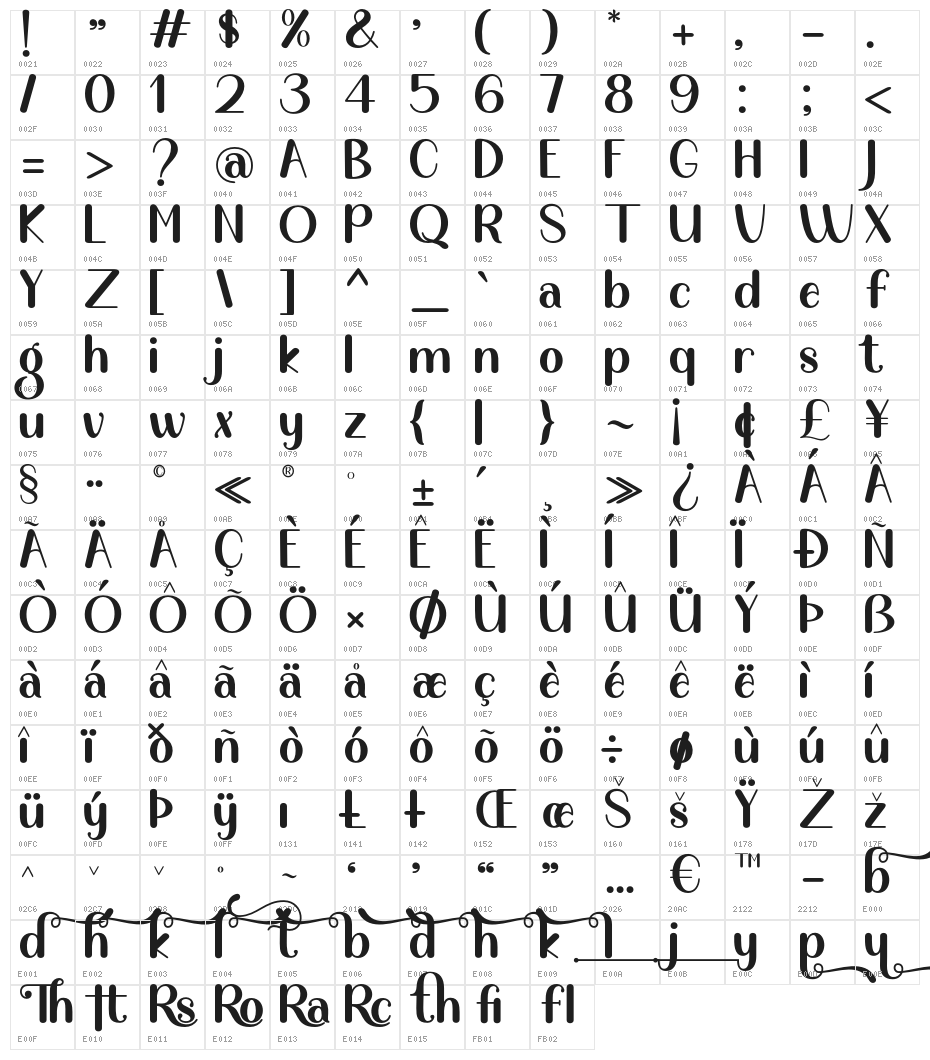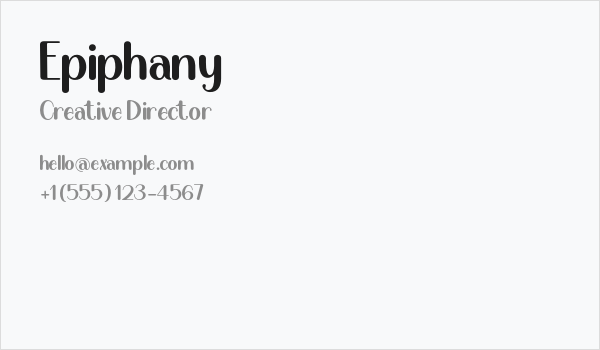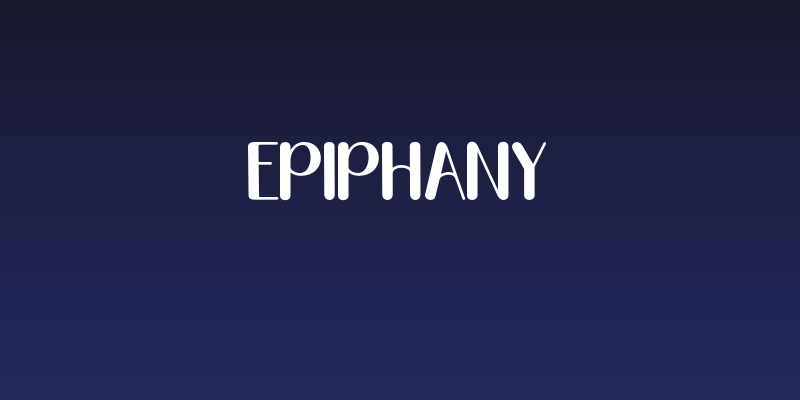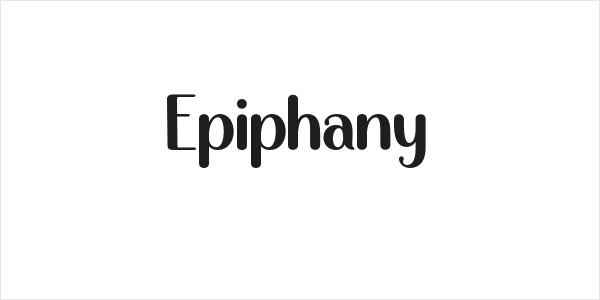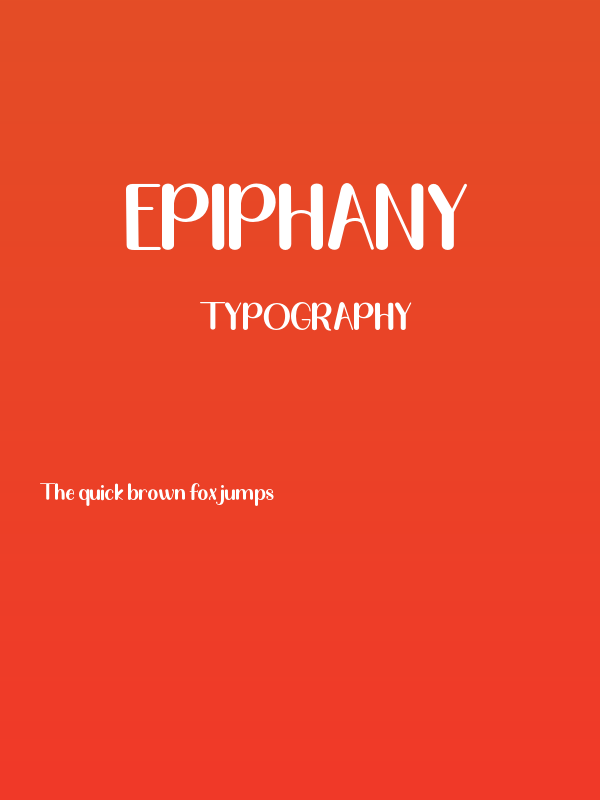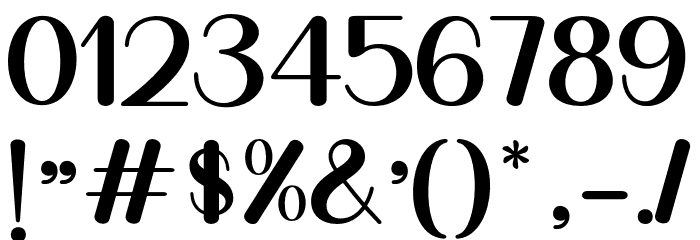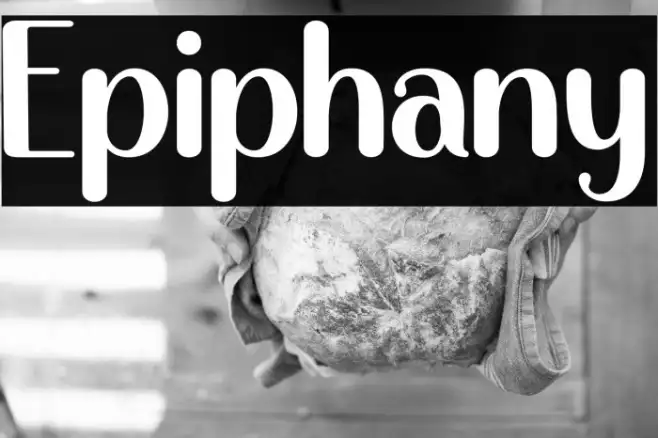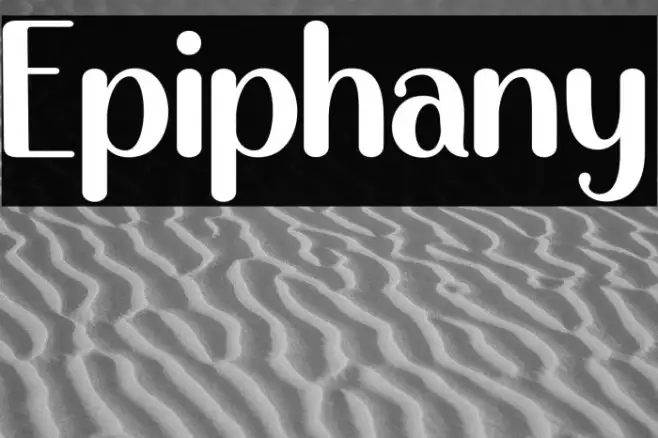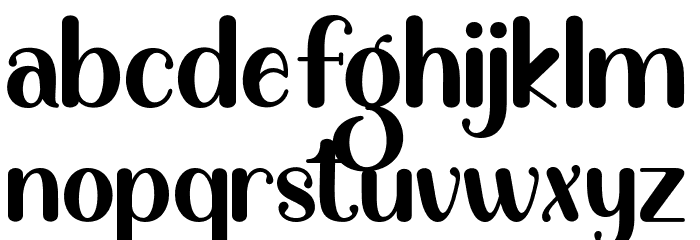
Epiphany Font
Epiphany Description
This font features a playful and modern design with a unique blend of thick and thin strokes, creating a dynamic and eye-catching appearance. The uppercase letters are bold and rounded, while the lowercase letters maintain a consistent flow with a slightly whimsical touch. The numerals are well-proportioned, complementing the overall style. Special characters are creatively designed, adding to the font's versatility. This font is perfect for projects that require a bold statement with a touch of elegance.
| Proposed Projects | Ideal for branding, advertising, packaging, and creative projects that require a bold and modern aesthetic. |